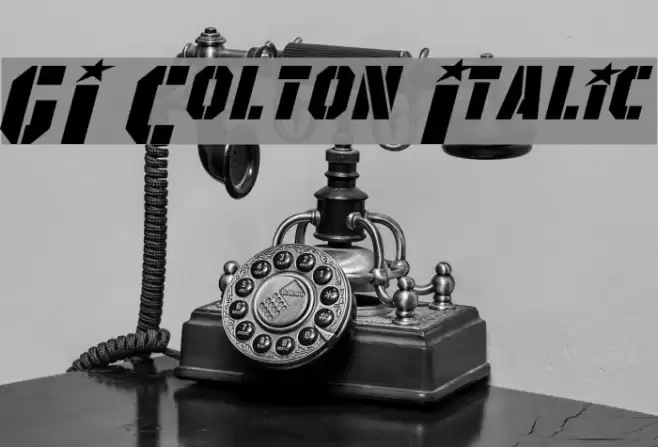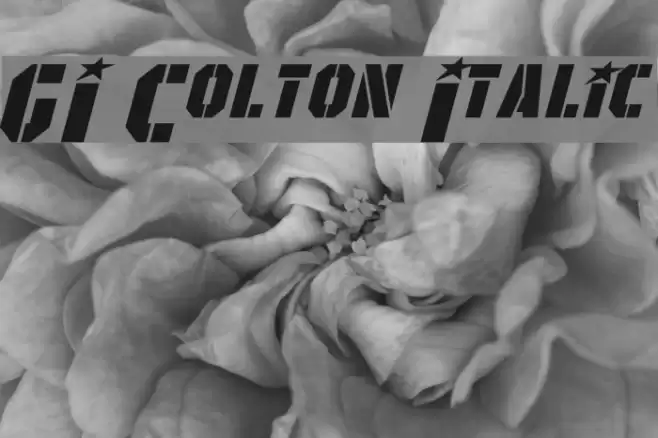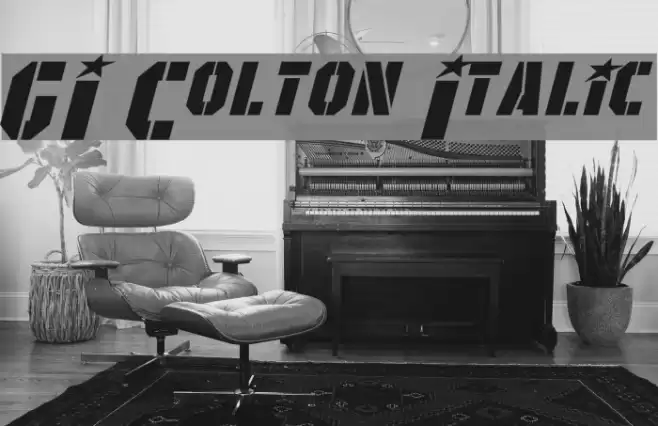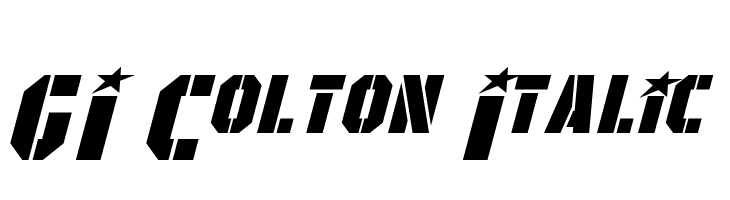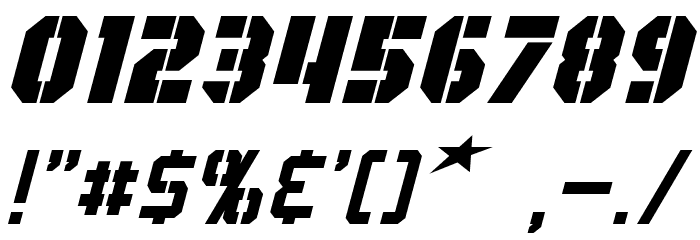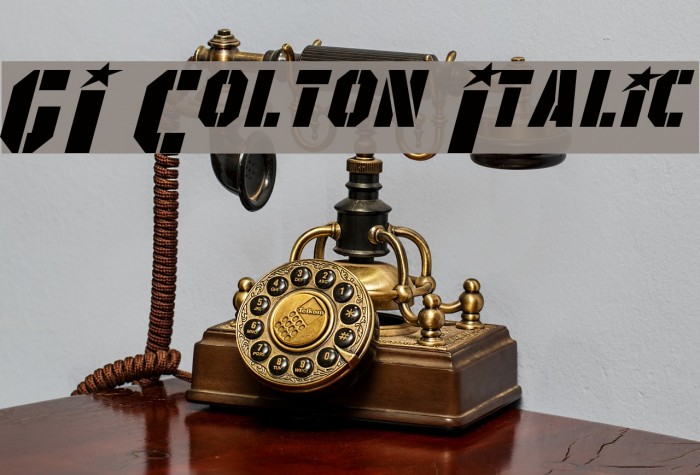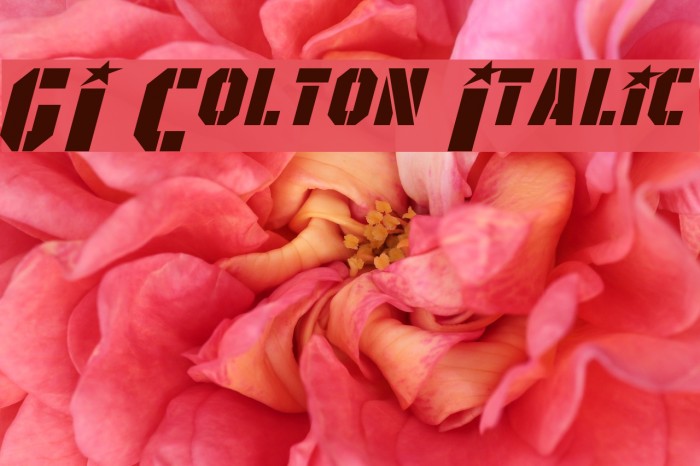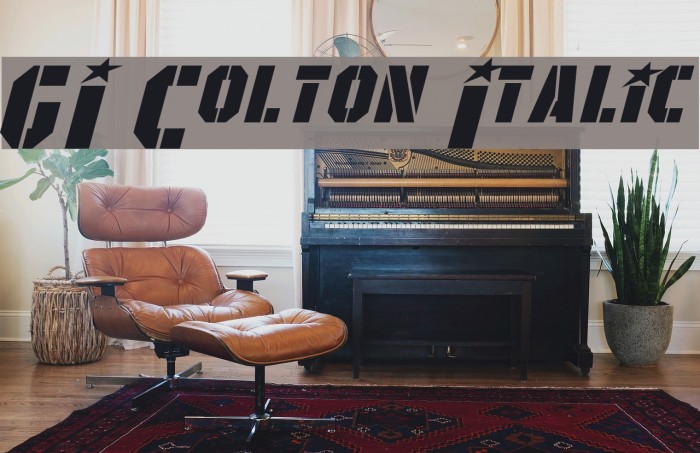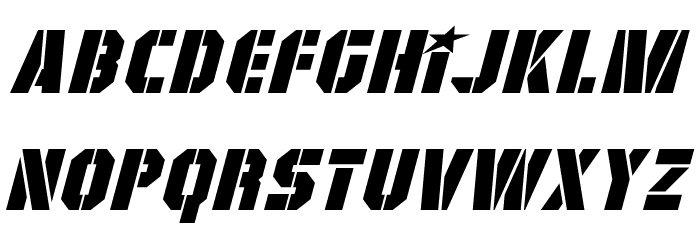
GI Colton Italic Font
GI Colton Italic Description
This font features a bold and dynamic design with a strong geometric influence. The characters are sharply angled, giving them a futuristic and edgy appearance. The uppercase letters are particularly striking, with a consistent slant that adds to the italicized effect. The numbers and special characters maintain the same boldness and angularity, ensuring a cohesive look across all glyphs. The font's unique style is enhanced by its high contrast, with thick strokes that dominate the design. This makes it ideal for attention-grabbing headlines and impactful logos.
A bold, geometric, and italicized font with high contrast and sharp angles from Uncategorized fonts.
- Proposed Projects: Ideal for projects requiring a futuristic or edgy aesthetic, such as sci-fi movie posters, tech company logos, or modern branding materials.